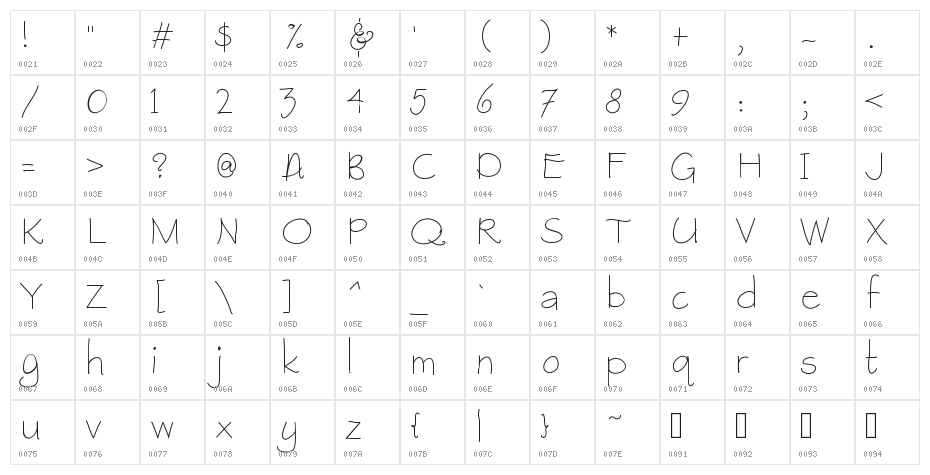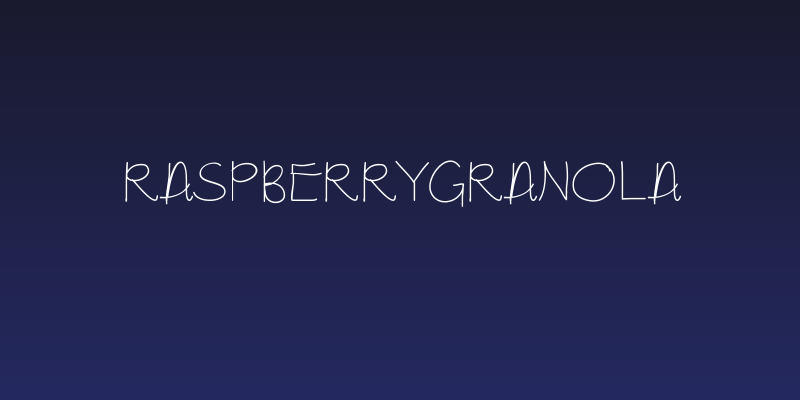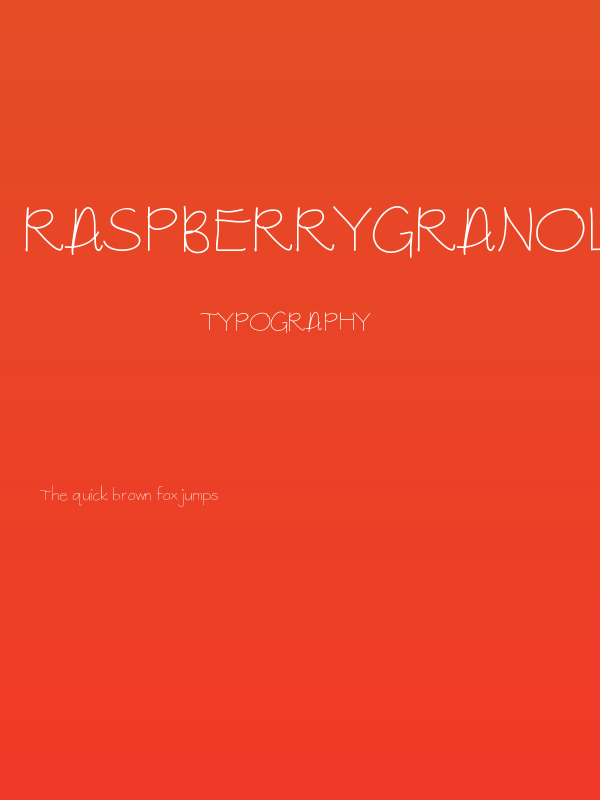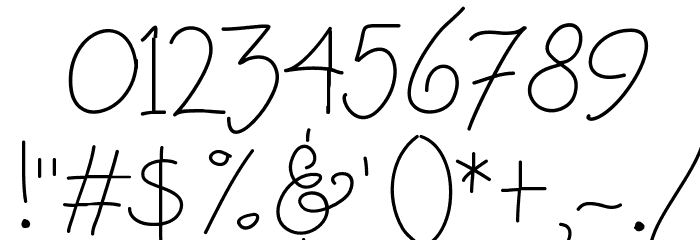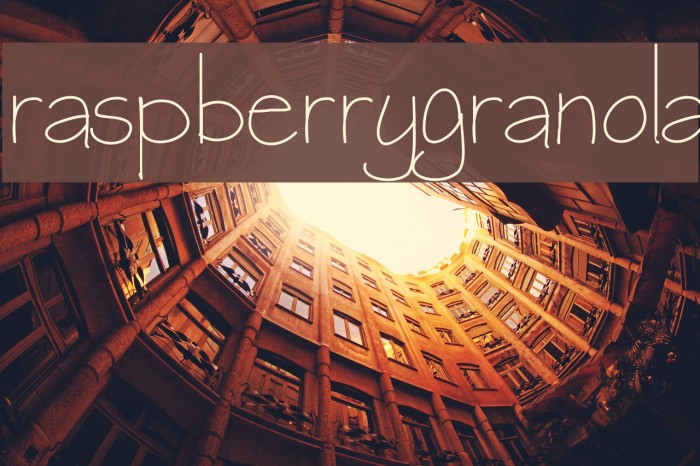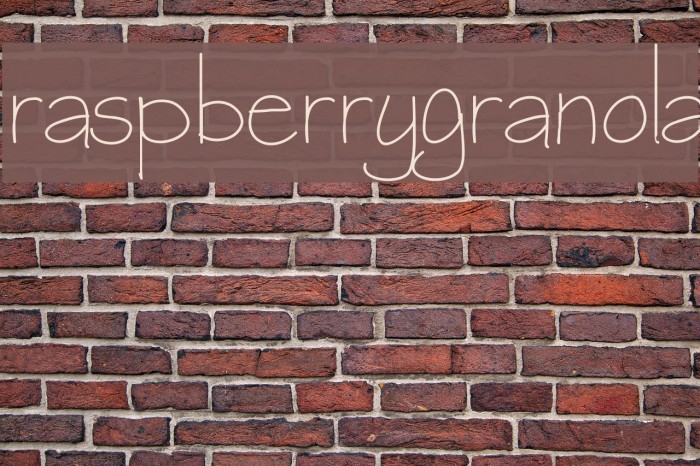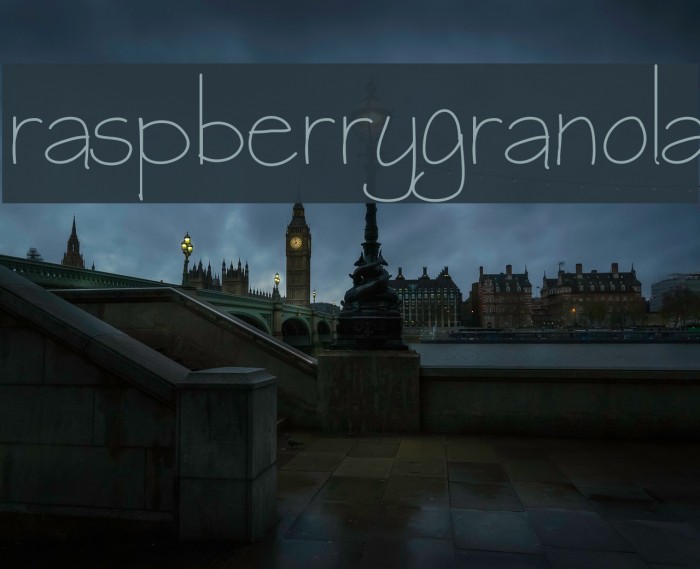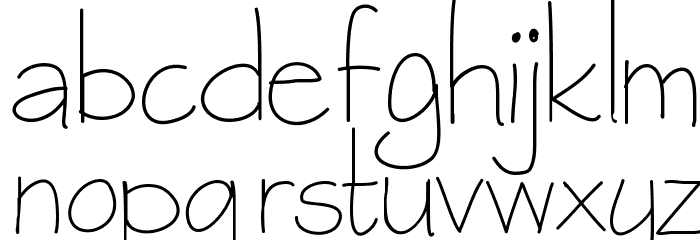
raspberrygranola Font
raspberrygranola Description
This font features a playful and whimsical style, characterized by its thin, flowing lines and slightly irregular shapes. The uppercase letters are tall and narrow, with a consistent stroke width that gives them a clean and modern appearance. The lowercase letters maintain a similar aesthetic, with rounded forms and a casual, handwritten feel. The numbers are clear and legible, matching the overall style of the alphabet. Special characters are designed with the same playful touch, making them suitable for creative projects. The font's unique personality makes it ideal for designs that require a friendly and approachable look.
| Proposed Projects | Ideal for children's books, greeting cards, playful branding, and creative invitations. |